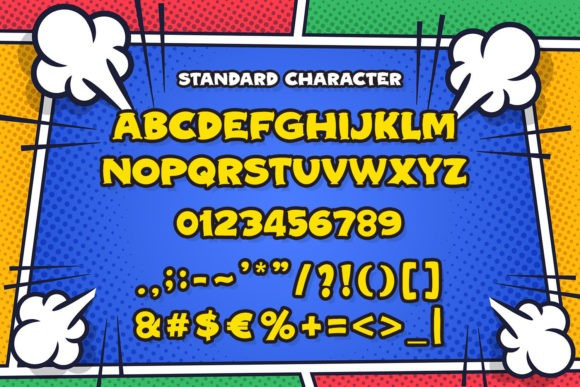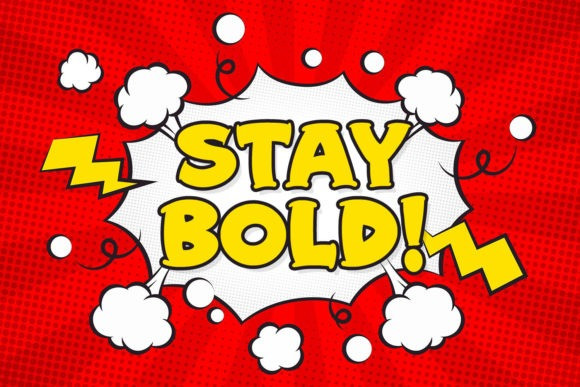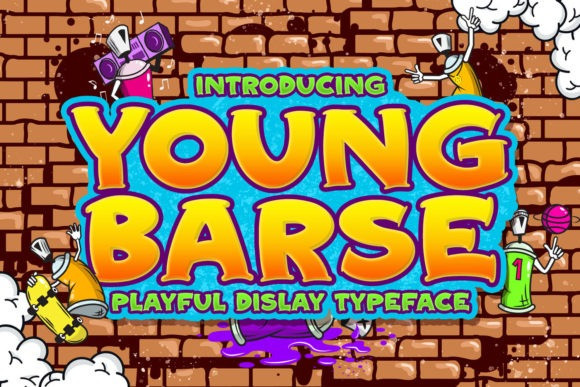
Young Barse Font
Young Barse Display Font is a bold, playful and fun display font. Whether you use it for cartoon related designs, children games or just any creation that requires a lovely touch, this font will be an amazing choice.